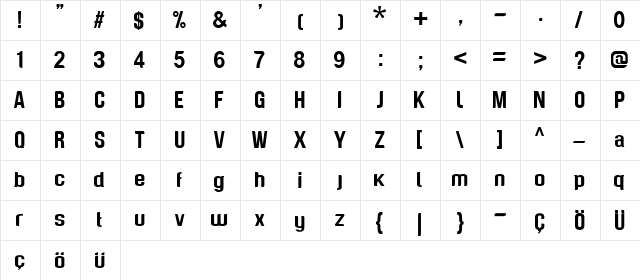
Genghis Khan >;C68@=K9
Design Context for Genghis Khan Typeface
Genghis Khan offers clean, dependable letterforms without strong stylistic allegiance, making it a practical choice for designers who need flexibility.